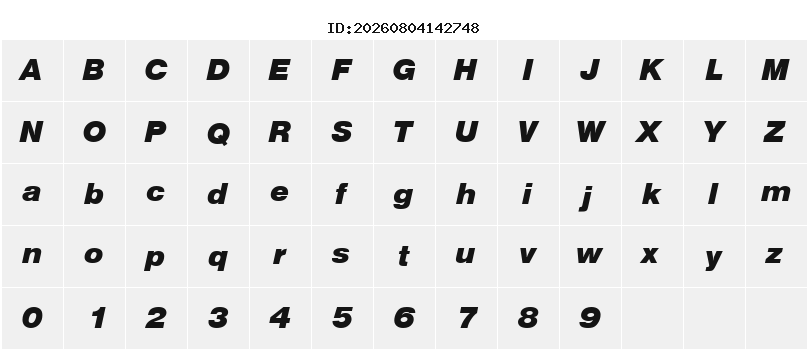
• Font Name: NimbusSanTBla
• Font ID: URW:NimbusSanT-BlacItal:1994
• Full Font Name: NimbusSanTBla Italic
• PostScript Name: NimbusSanT-BlacItal
About NimbusSanTBla.ttf
NimbusSanTBla.ttf is a modern, elegant sans-serif font designed for ultimate readability and visual harmony. Perfect for branding, headlines, web design, and print materials.